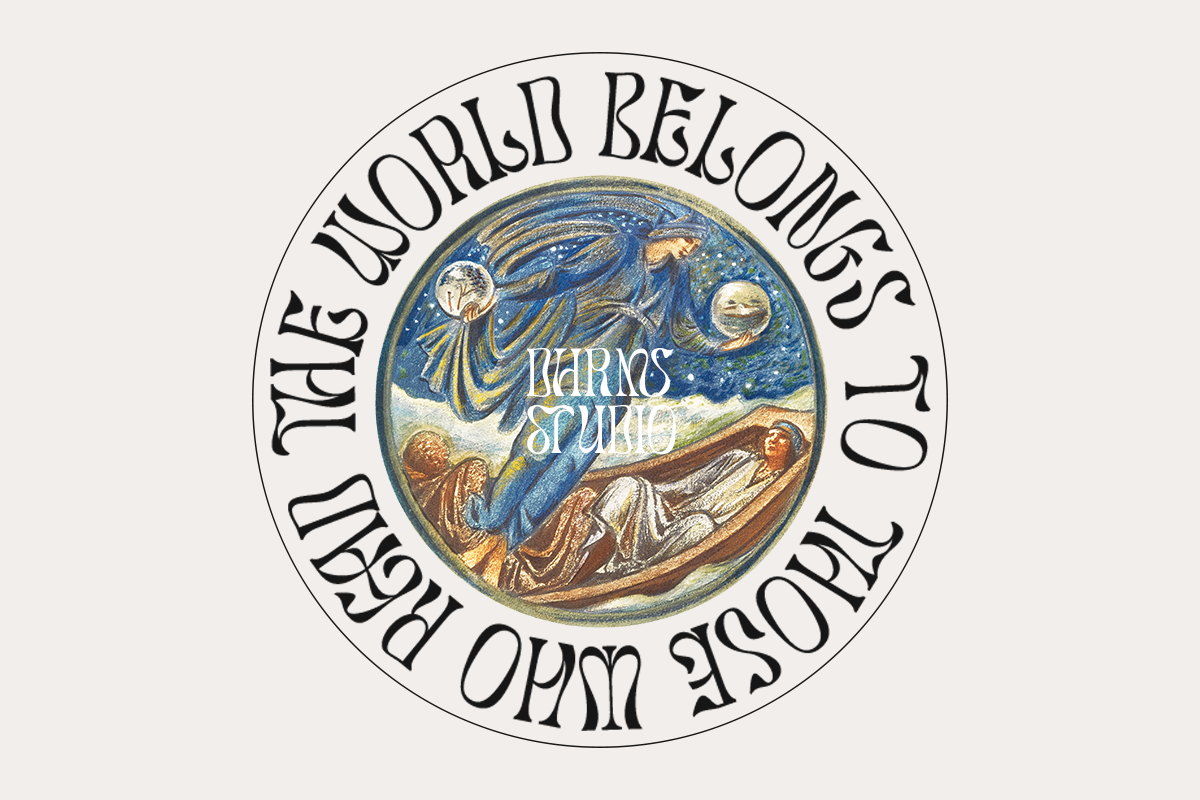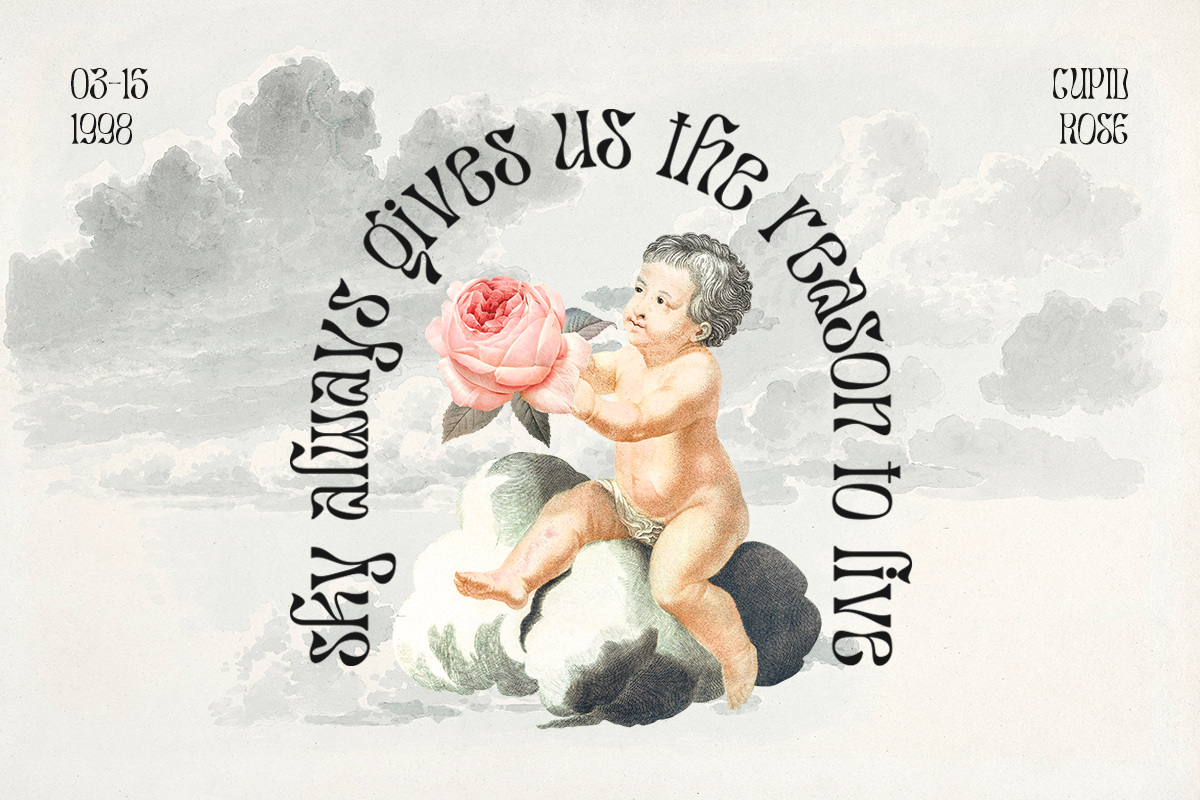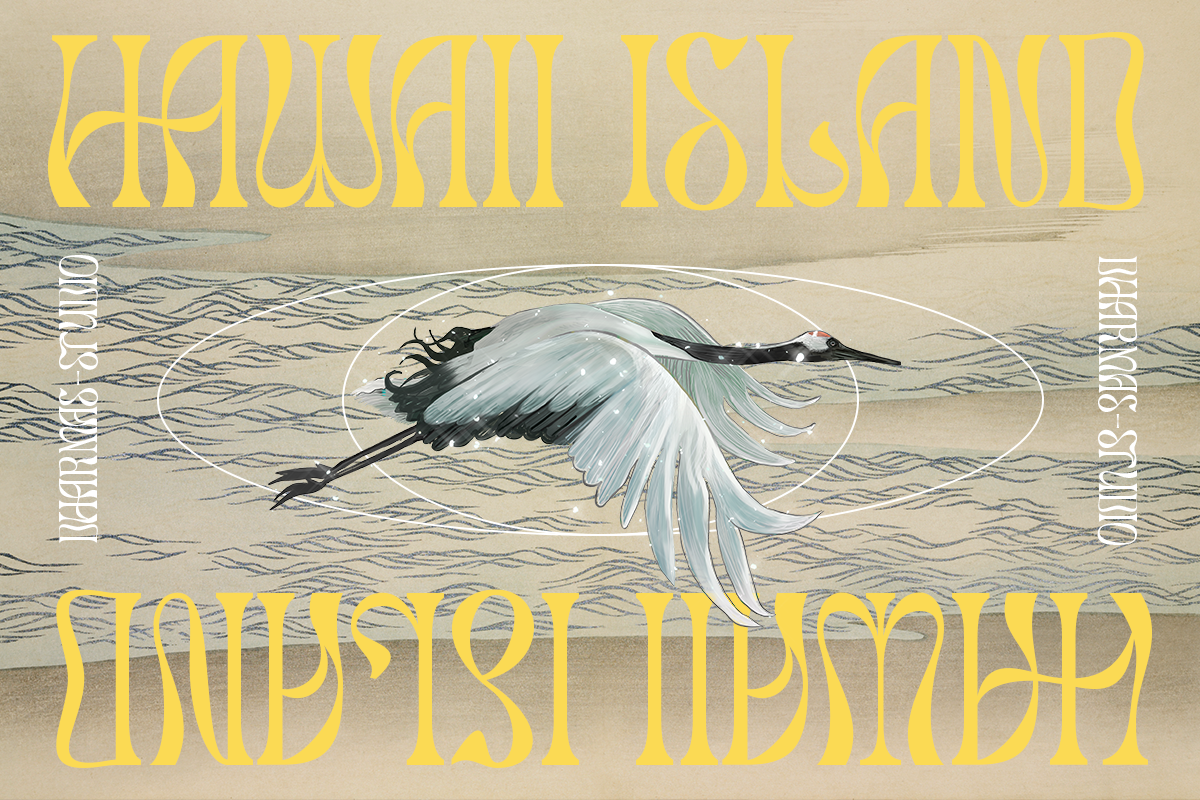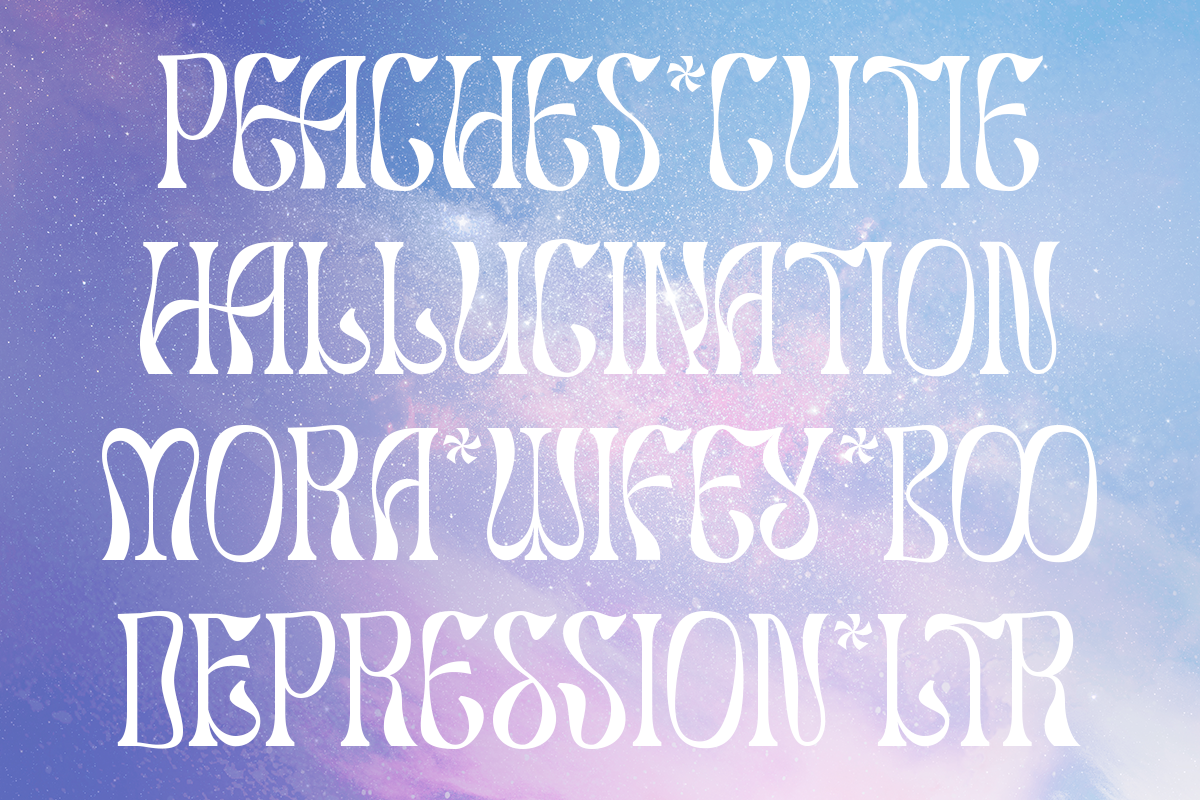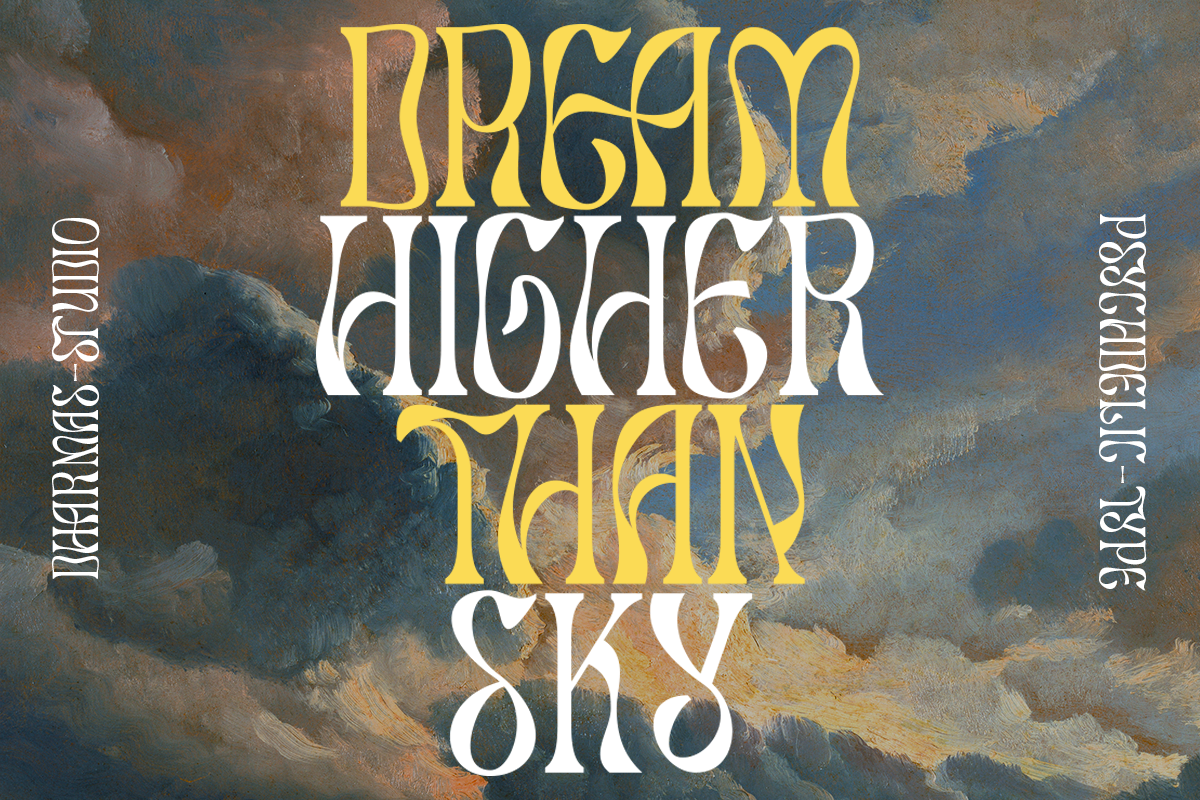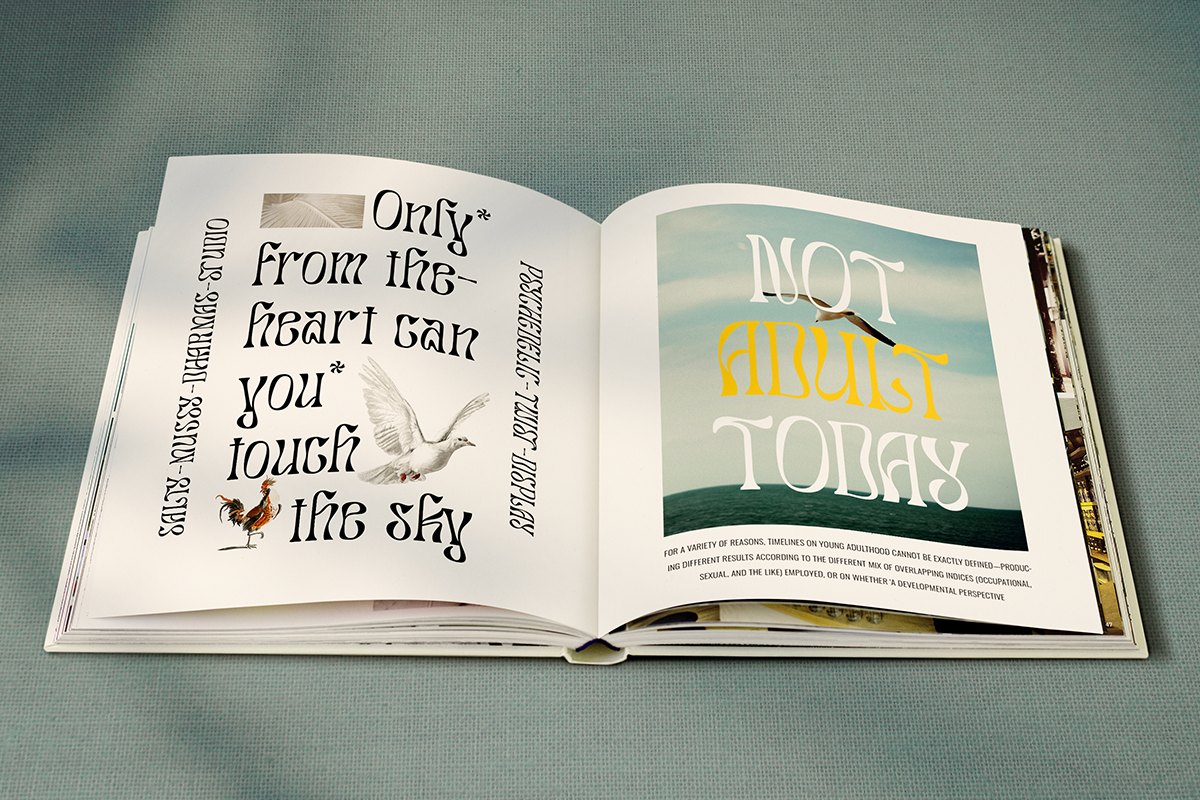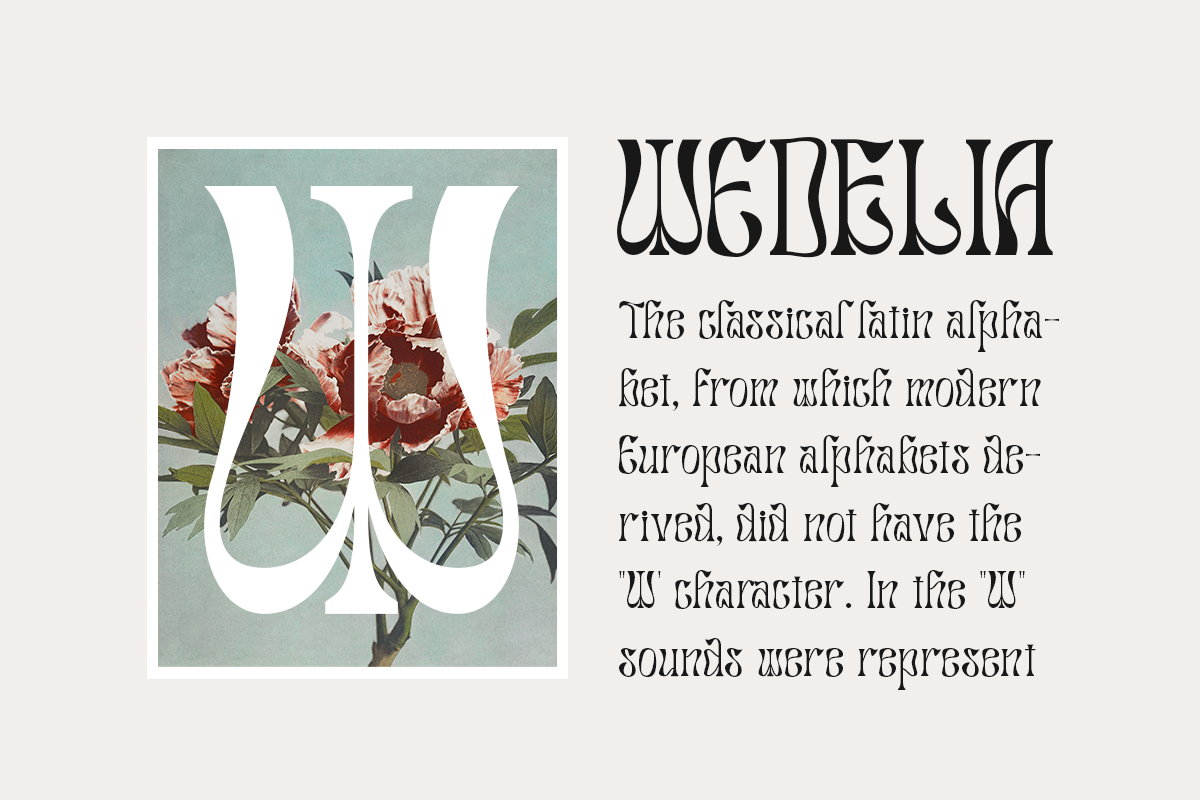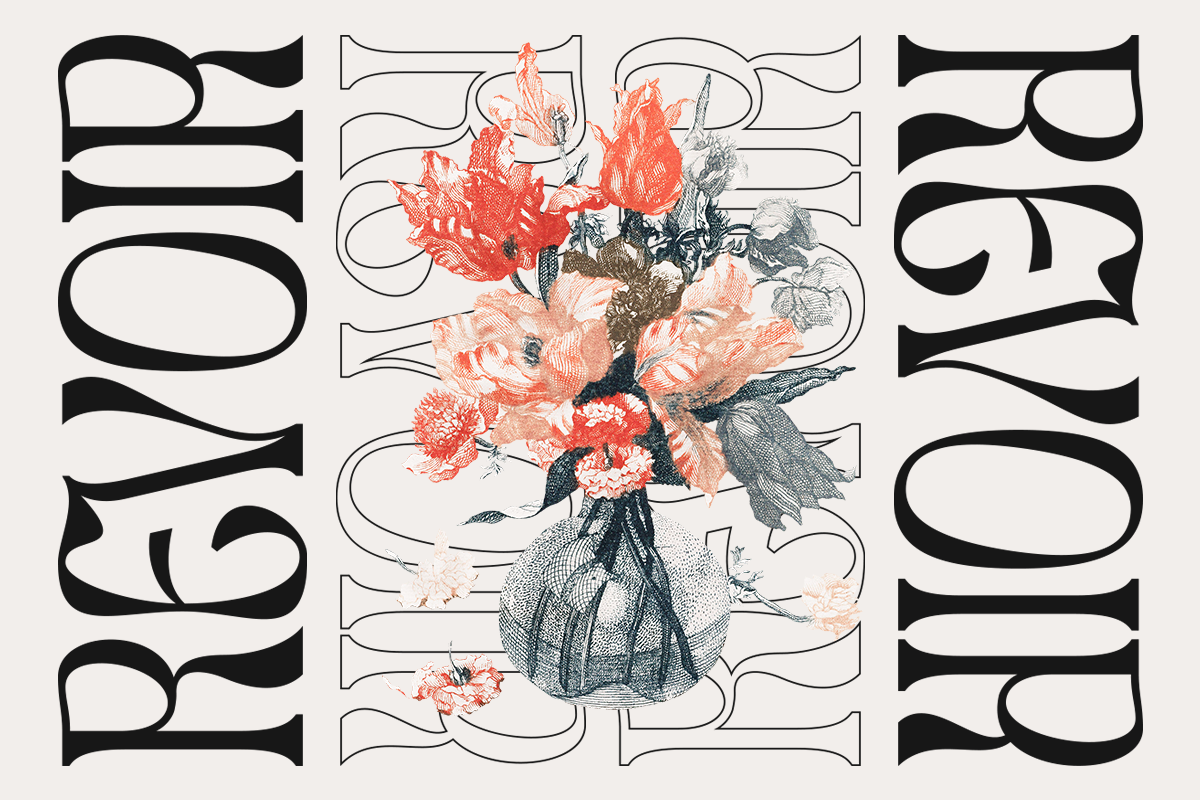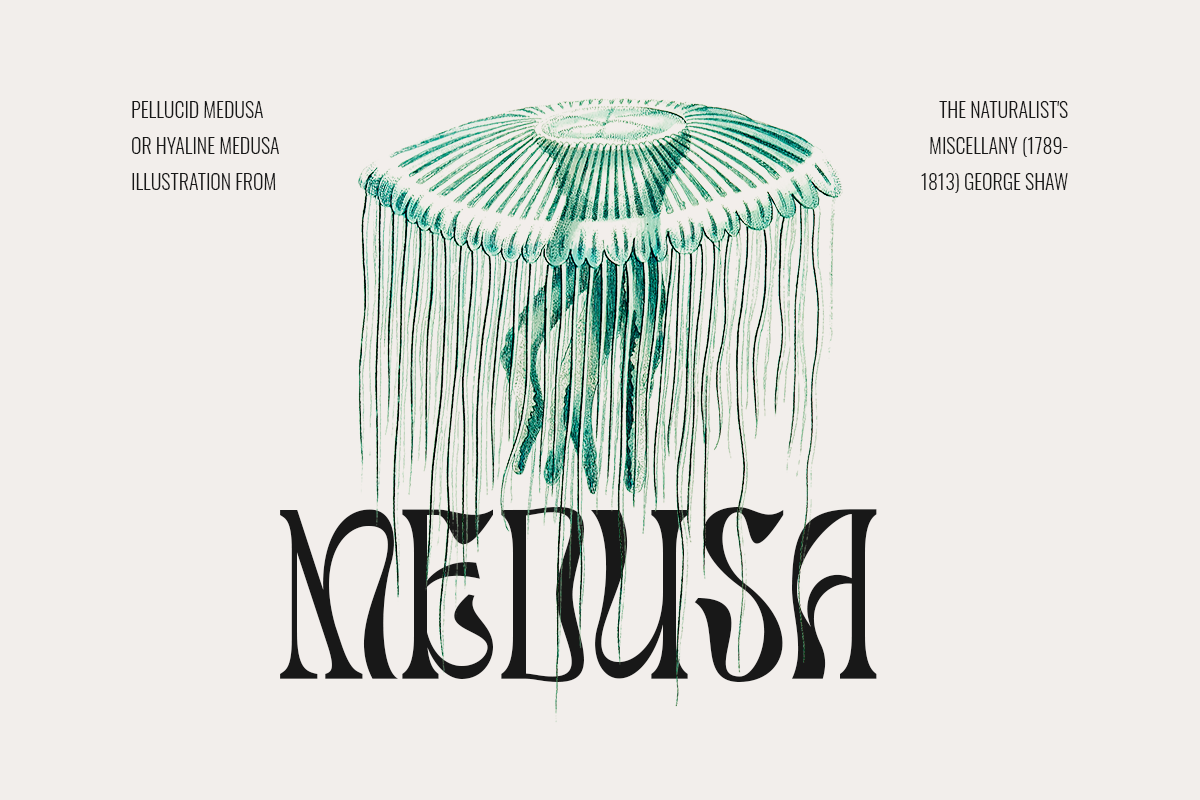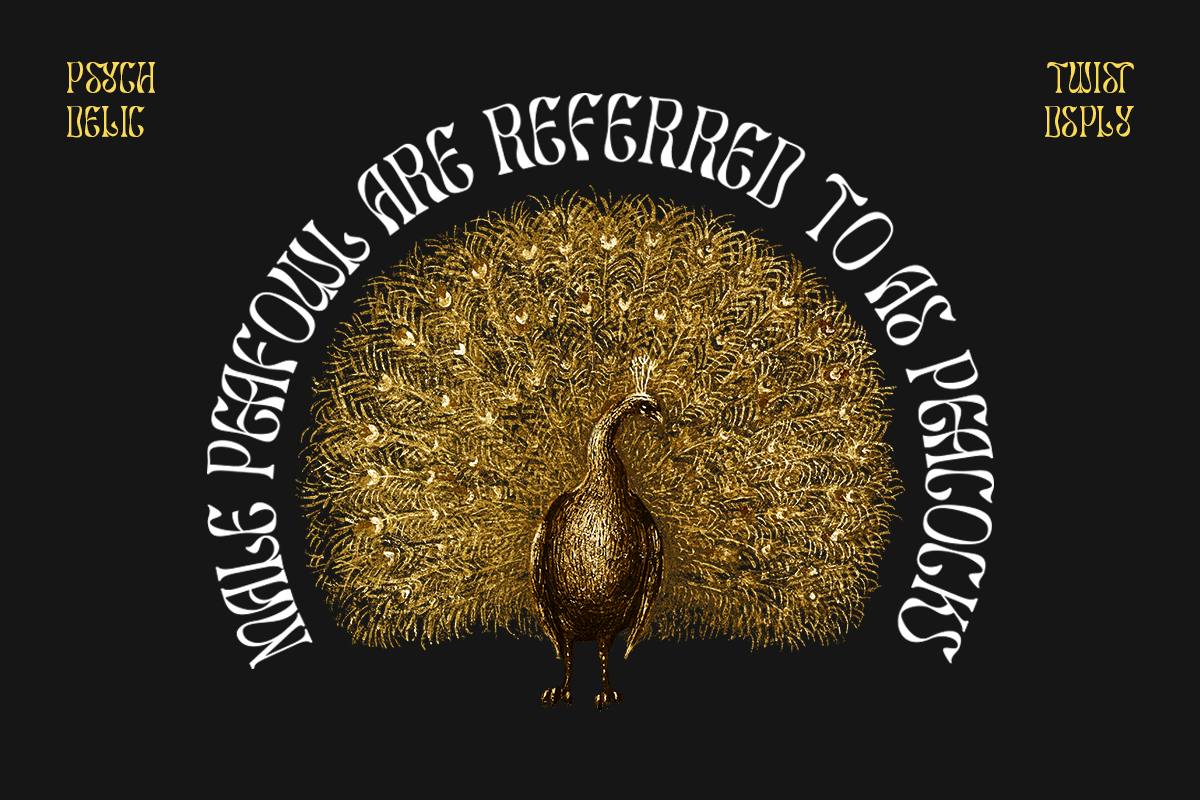
Salty Mussy - Quirky Twisted Display
New Twist Display font, so here for you, Salty Mussy!
Salty Mussy - A display typeface that has quirky and twisted style, It brings back the 70s vibes with its modern but still funky rhythm. This font has a beautiful uppercase and lowercase, so it can show more options for your project!
Salty Mussy - This font is also included in the psychedelic style which can be very suitable for use in many projects such as street art design, posters, magazines, quotes for Instagram, and many more!
Letters, numbers, punctuation, multilingual support
Has 64 beautiful alternates and ligatures